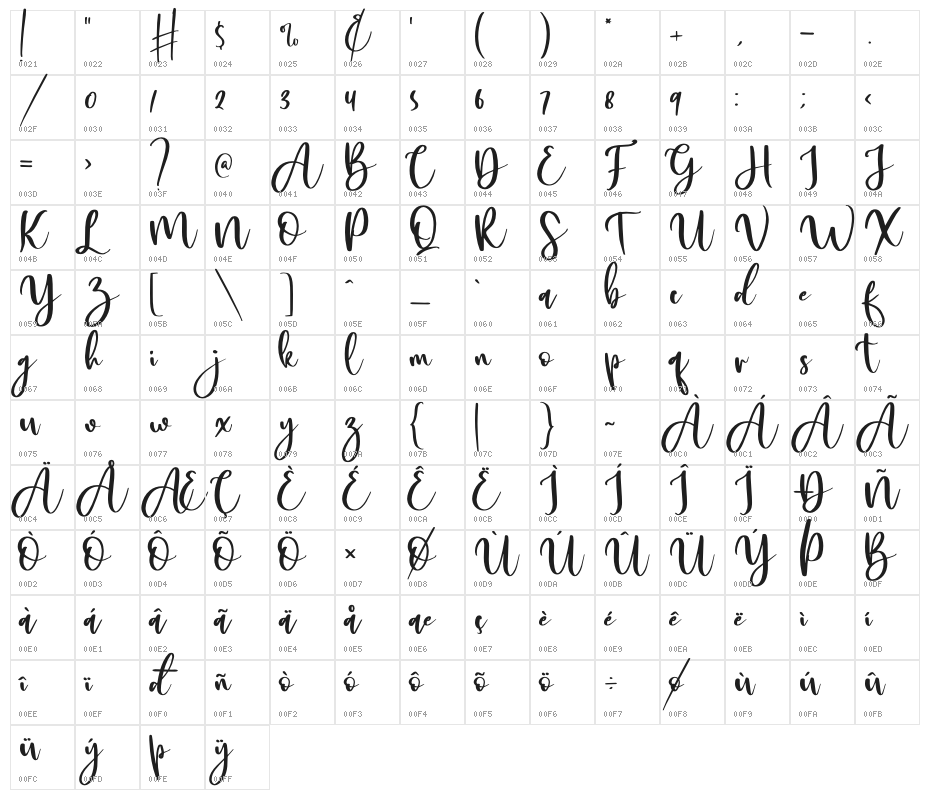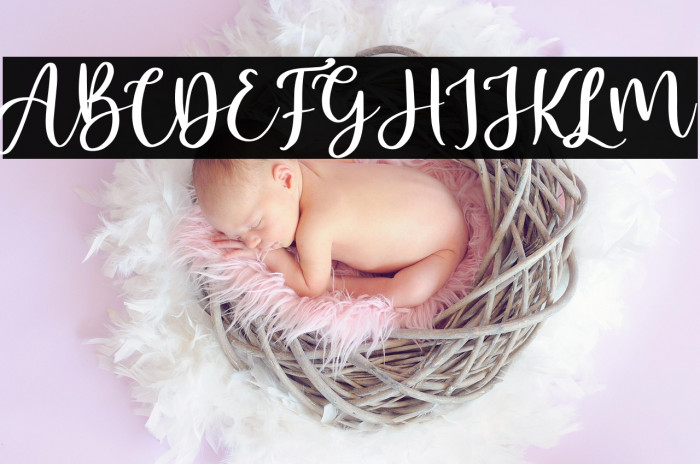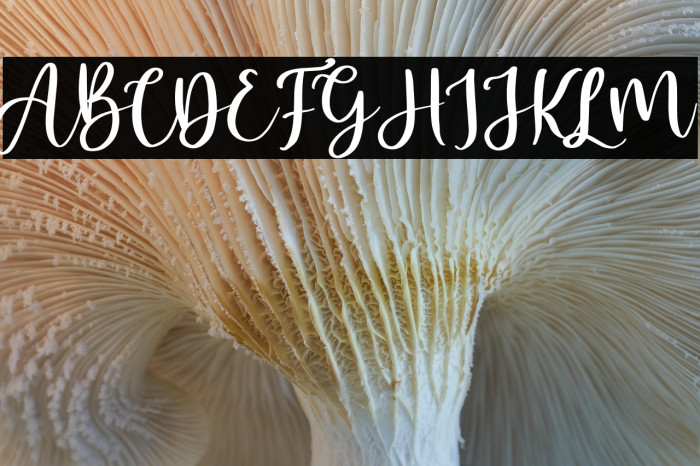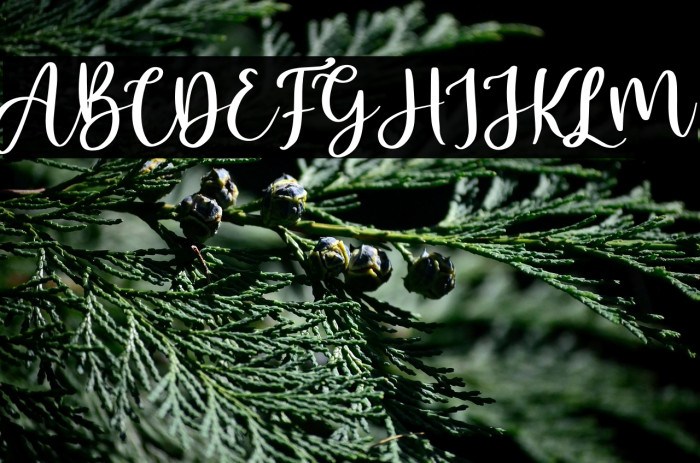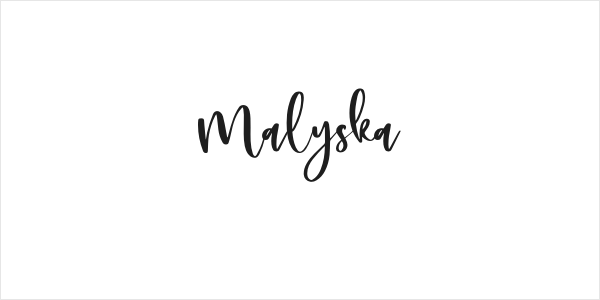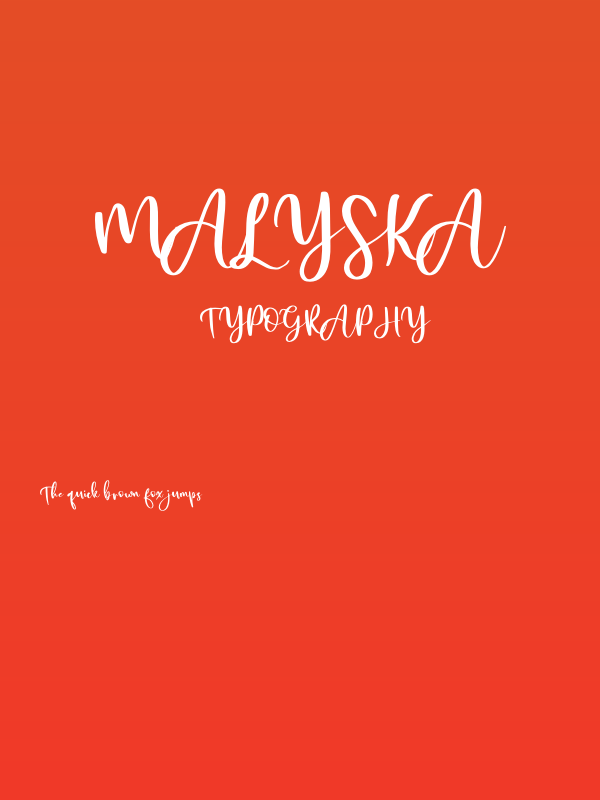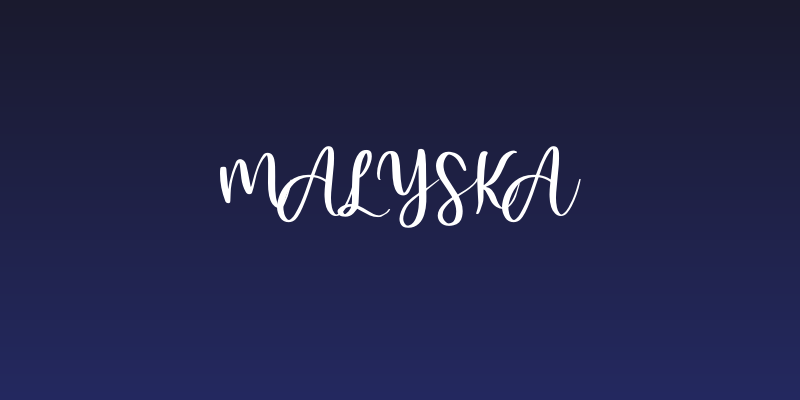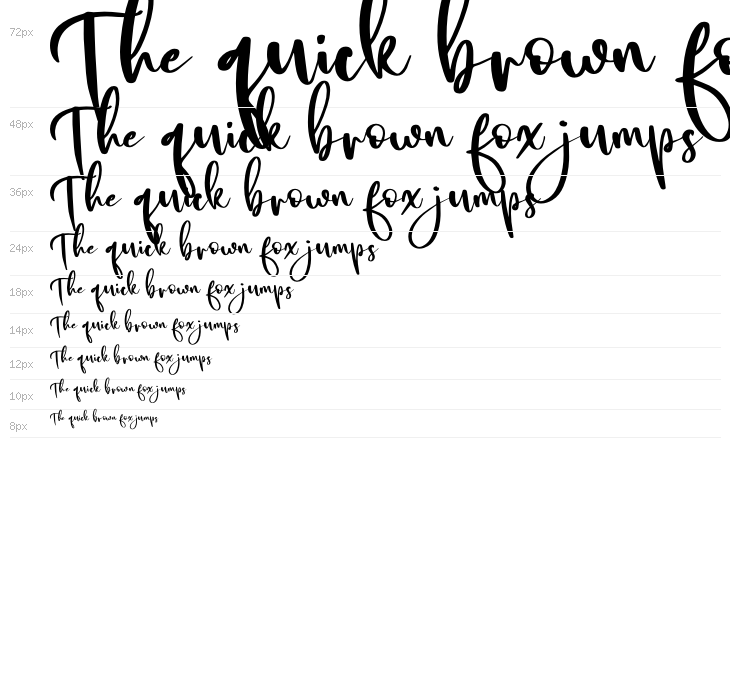
Malyska Font
Malyska Description
This font features a lively and expressive handwritten style, characterized by its fluid and dynamic strokes. The uppercase letters are bold and slightly slanted, giving a sense of movement and energy. The lowercase letters maintain a consistent flow, with some characters exhibiting playful loops and swirls. The numerals are equally expressive, maintaining the font's overall aesthetic. Special characters are creatively integrated, adding to the font's unique personality. This font is ideal for projects that require a personal and artistic touch, such as invitations, greeting cards, or branding materials.